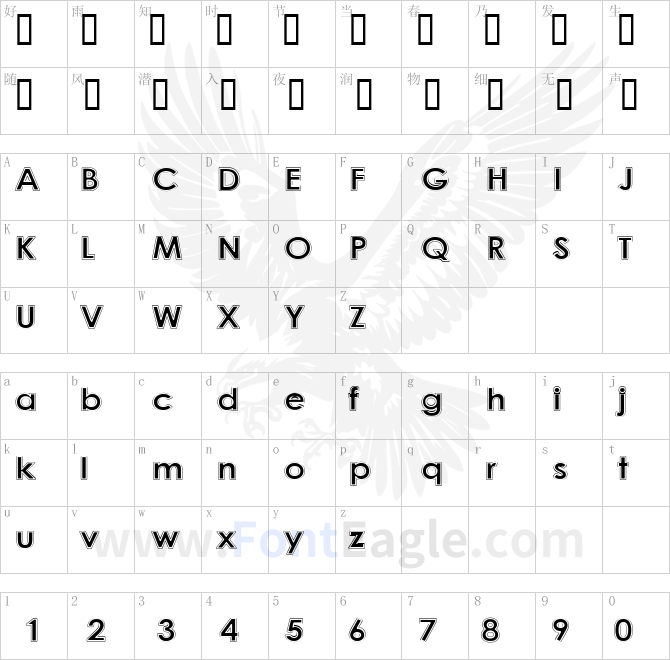
- Font name:College Halo
College-Halo-copy-1- is a great font, widely used in graphic design, single-page menu design, poster design and other fields, and is deeply loved by designers.College-Halo-copy-1- download.